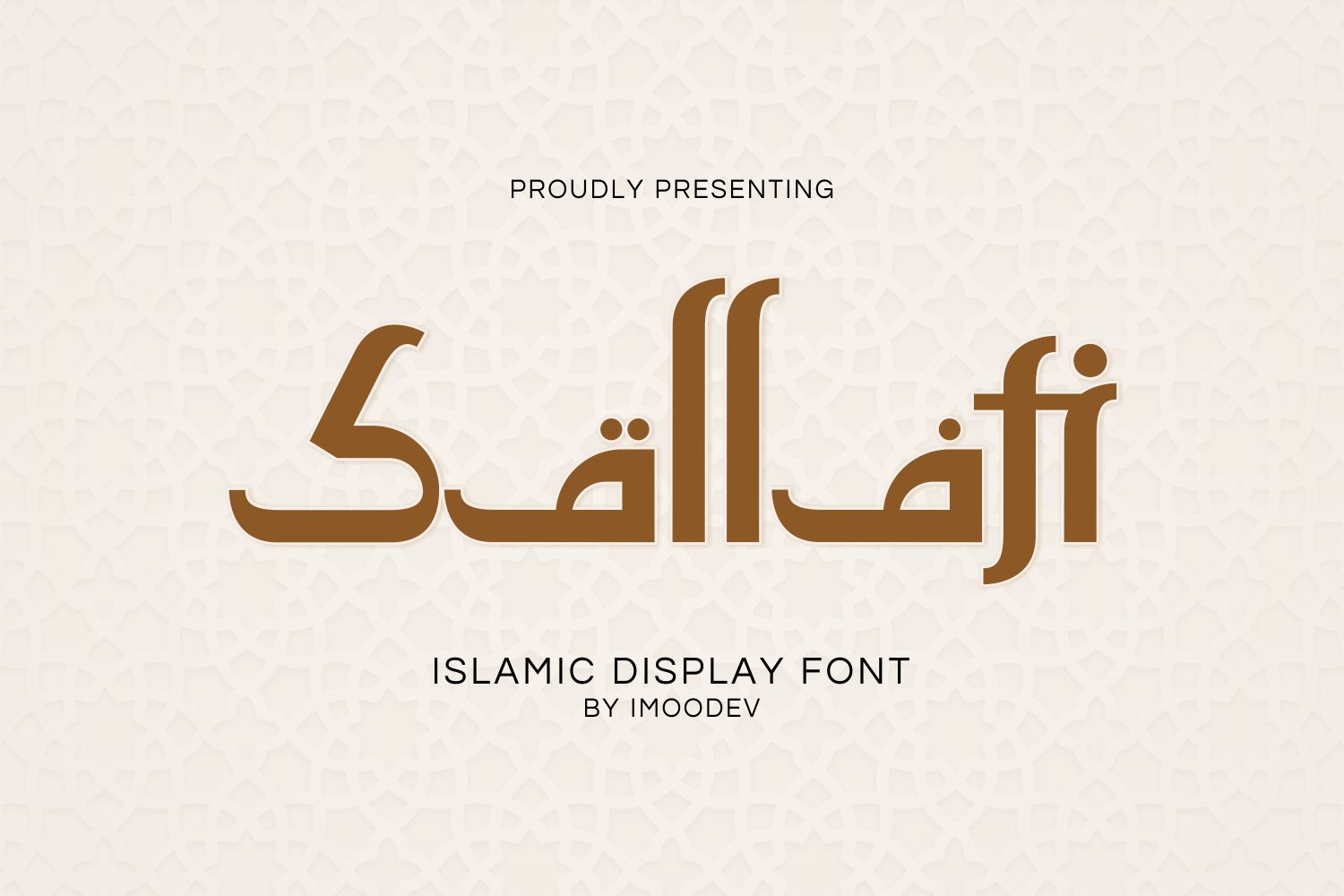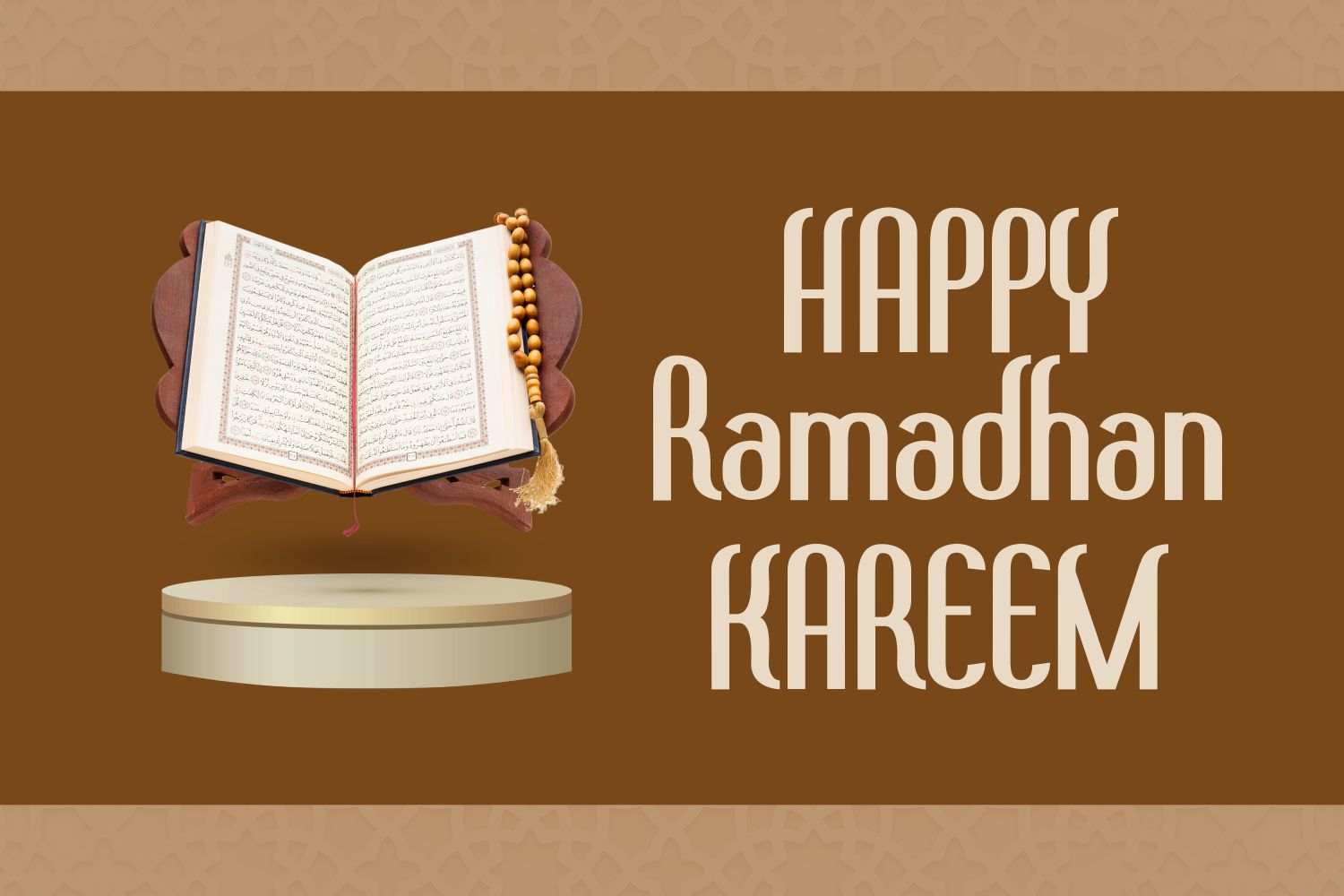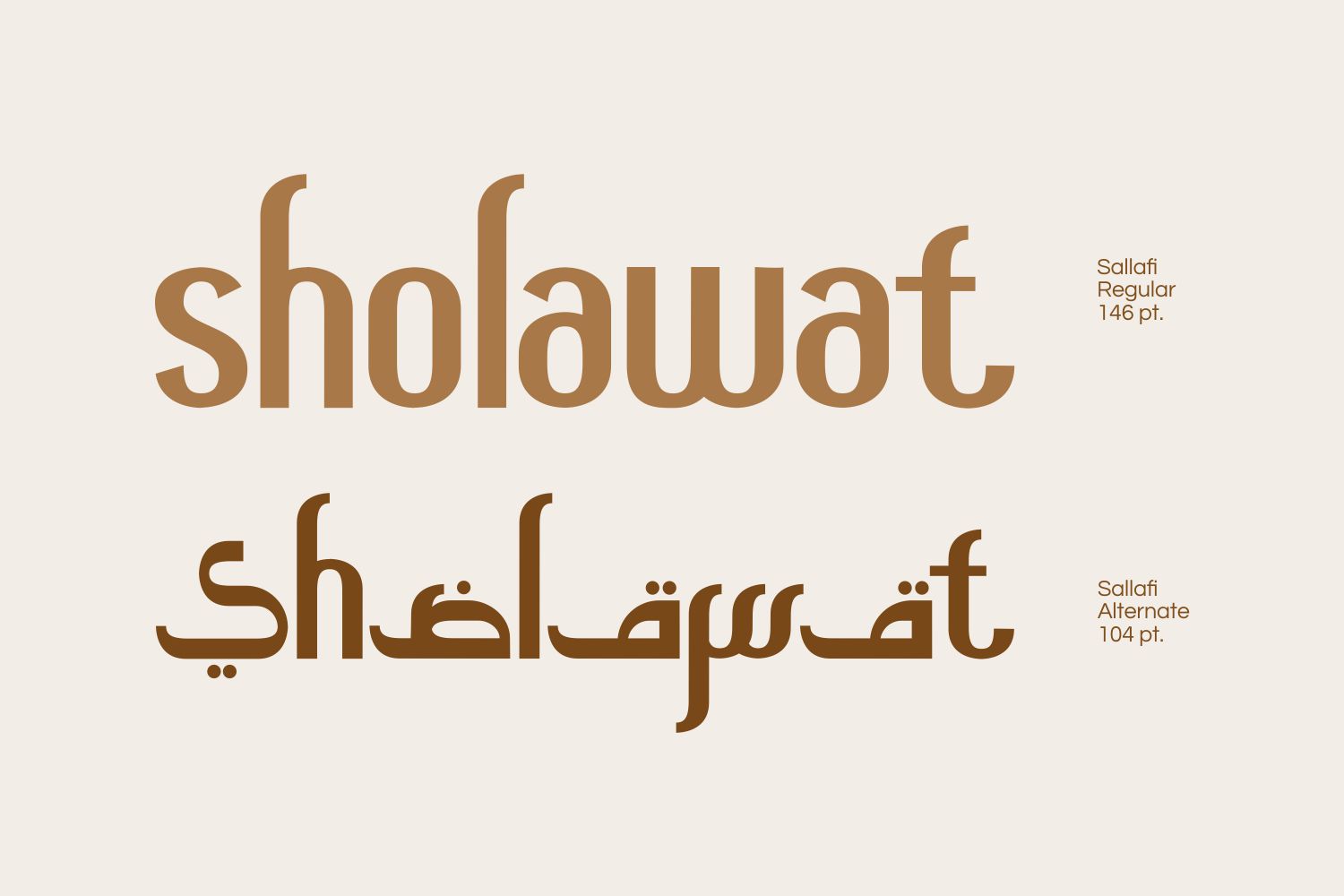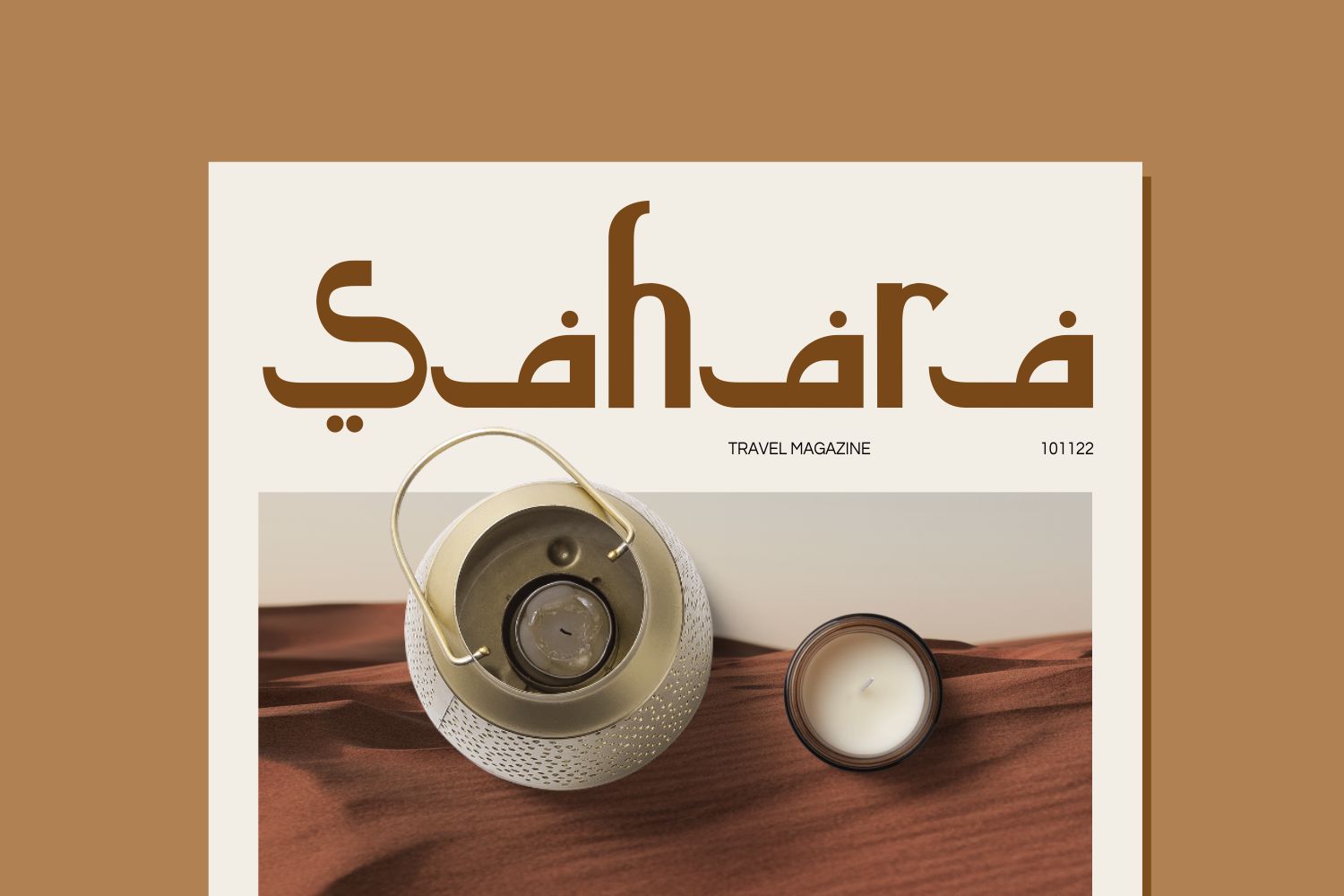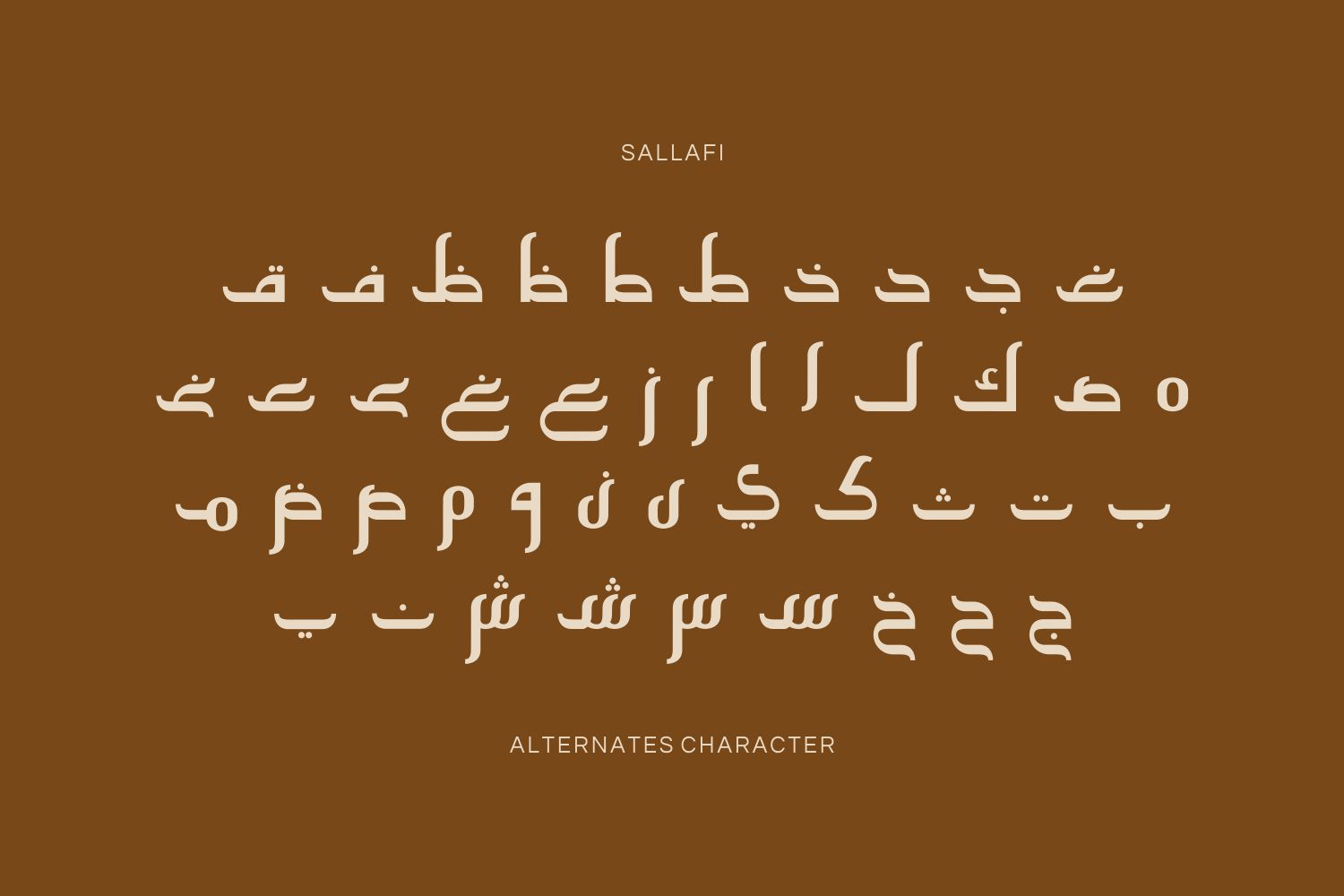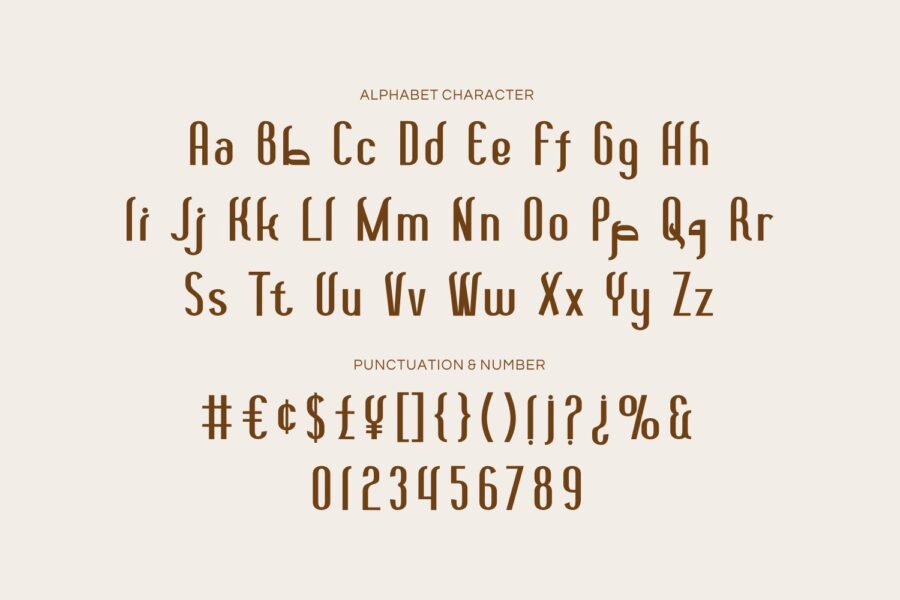
Sallafi is an Islamic display font that beautifully blends Arabic-inspired calligraphy with a modern geometric touch. Its tall, clean strokes and unique alternates create a balance between tradition and contemporary style, making it perfect for religious events, Ramadhan greetings, Islamic branding, or cultural publications. The font’s distinctive design captures the essence of Middle Eastern artistry while ensuring readability and elegance.
With both Latin and Arabic-inspired character sets, Sallafi offers versatility for designers who want to create authentic yet modern designs. Ideal for posters, packaging, magazines, and digital promotions, this font adds a spiritual and cultural identity to every project. Its refined style makes it a powerful choice for brands and events rooted in Islamic tradition.
Sallafi